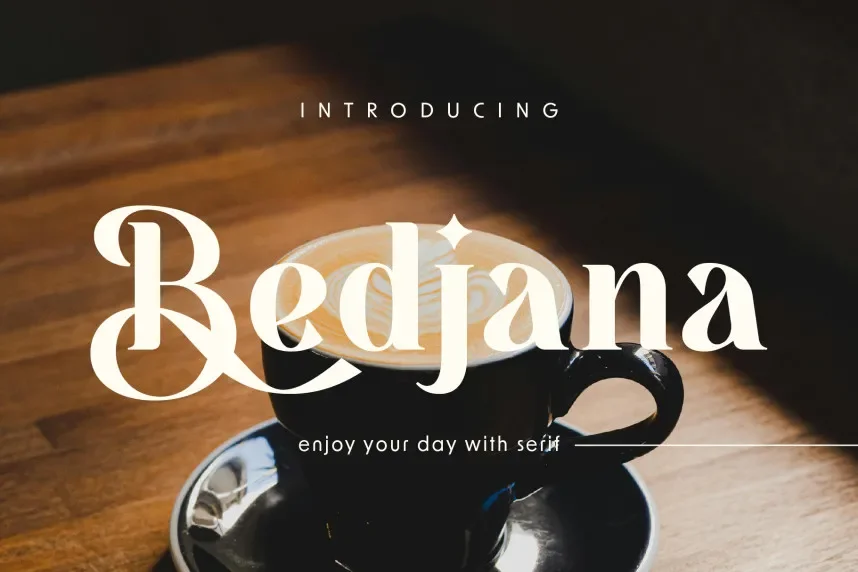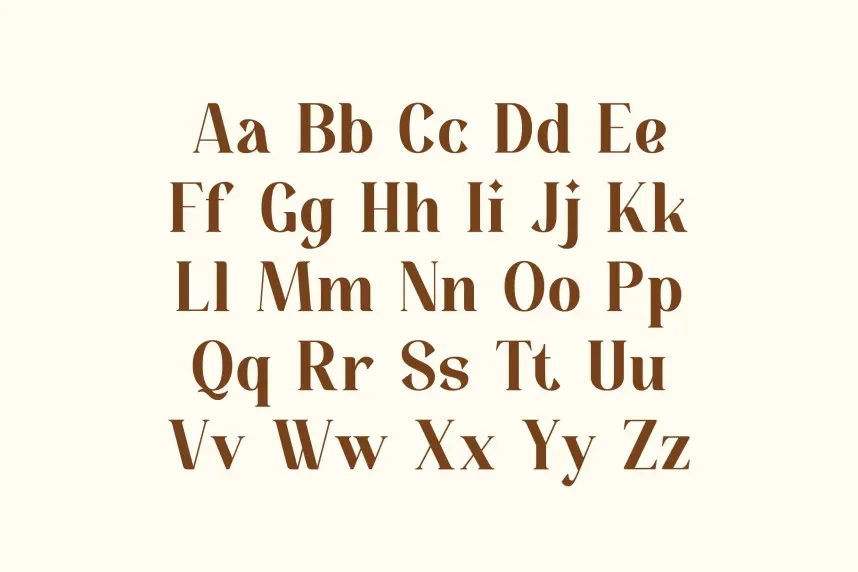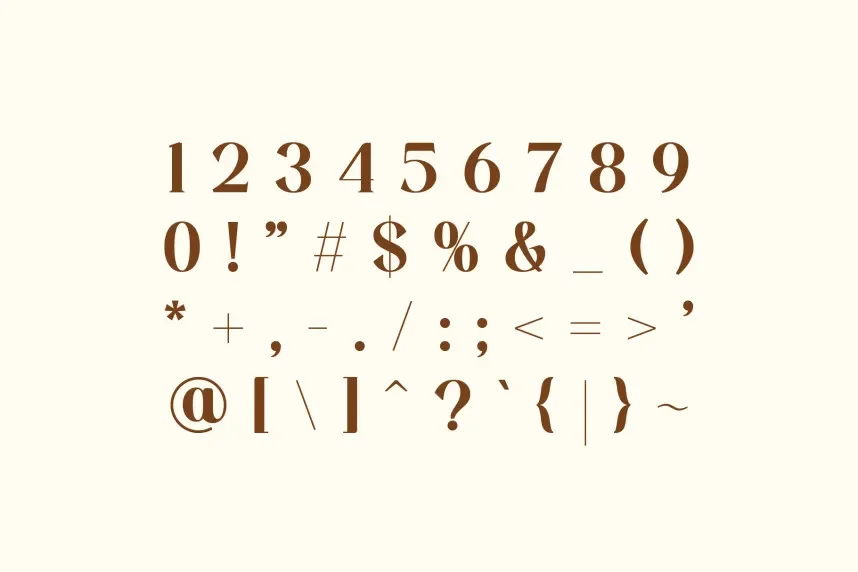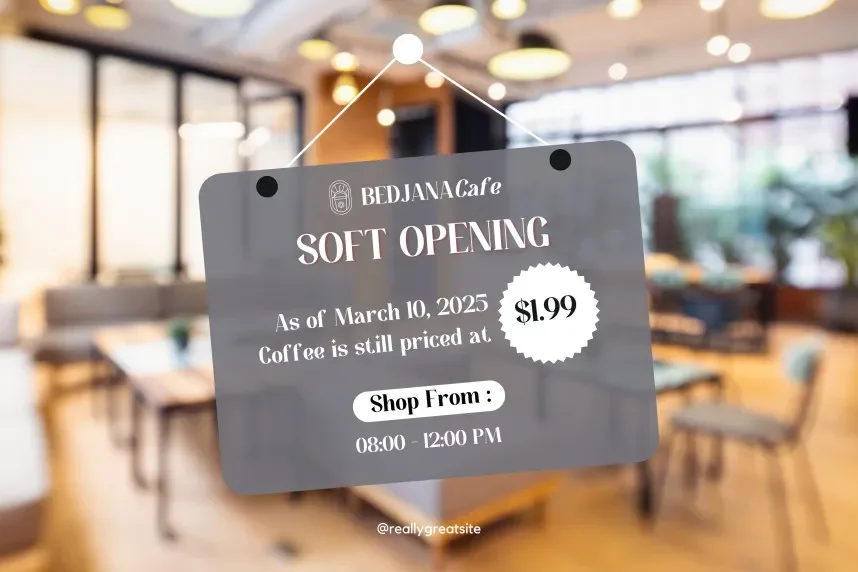
Bedjana Font helps designers create handwritten titles that stay readable across branding, invitations, and digital signatures. Its script style supports projects that need a personal tone without losing clarity, especially in logo design, wedding stationery, and social media headers.
Bedjana Font is a modern script typeface built with smooth curves, linked strokes, and a consistent slant. The letterforms show gentle transitions between thin and thick lines, similar to real pen pressure. Some releases include ligatures and alternates that help shape custom wordmarks or decorative headings. Its rounded terminals give the typeface a warm, steady rhythm, which works well in both print and digital layouts.
The font works best for boutique branding, event invitations, thank-you cards, and highlight text on Instagram or Pinterest posts. For balanced layouts, pair Bedjana with a simple sans-serif for body text or navigation labels. Medium or large sizes help keep the script strokes clear.